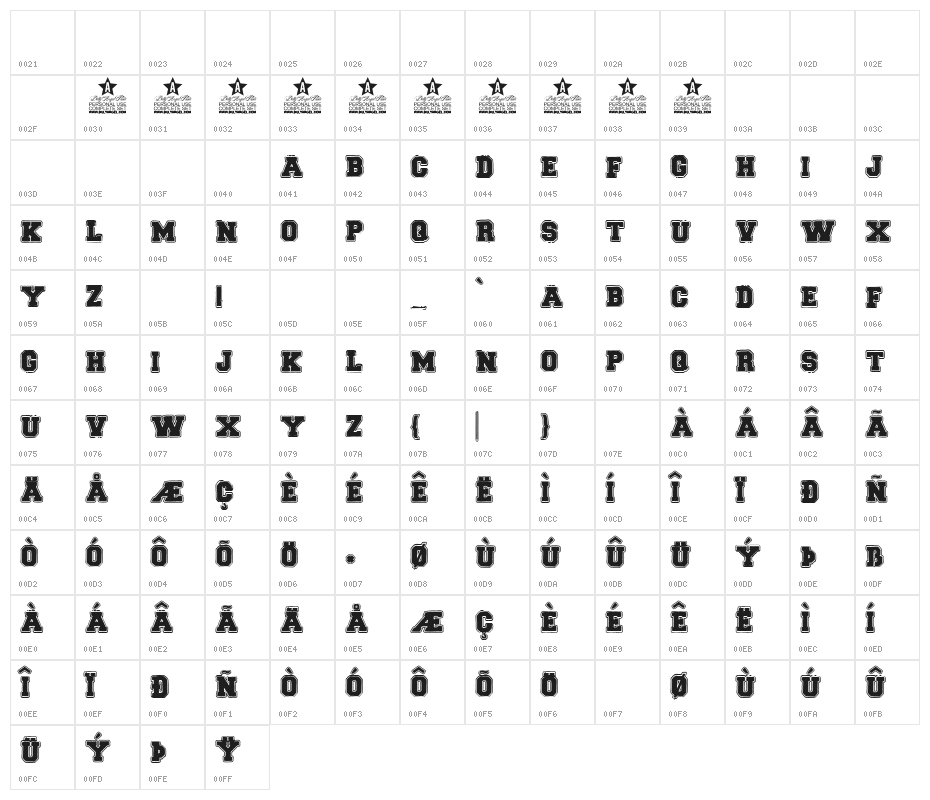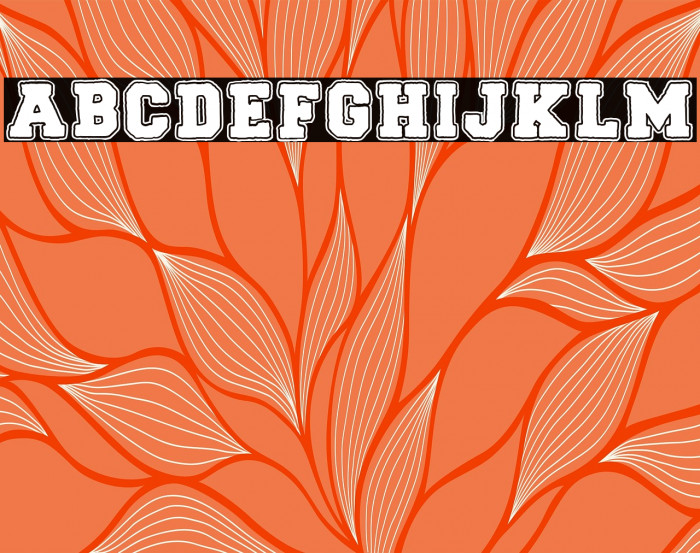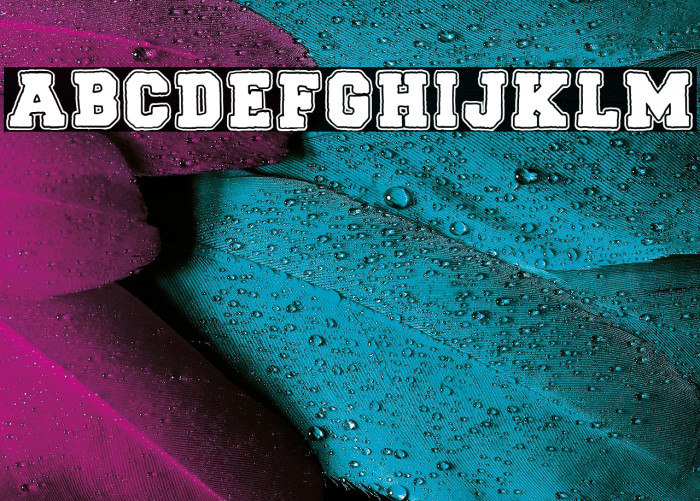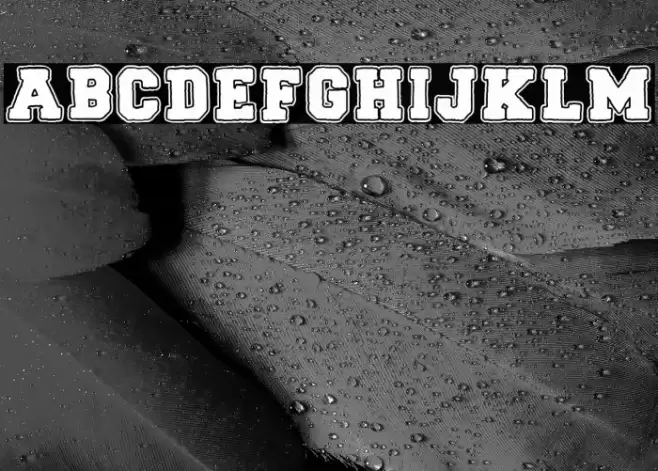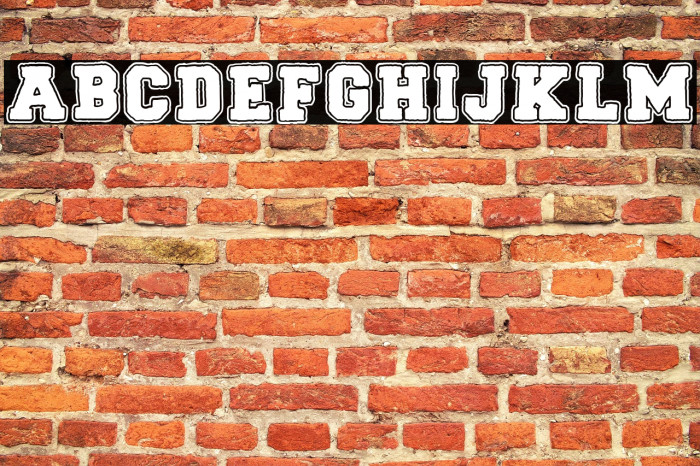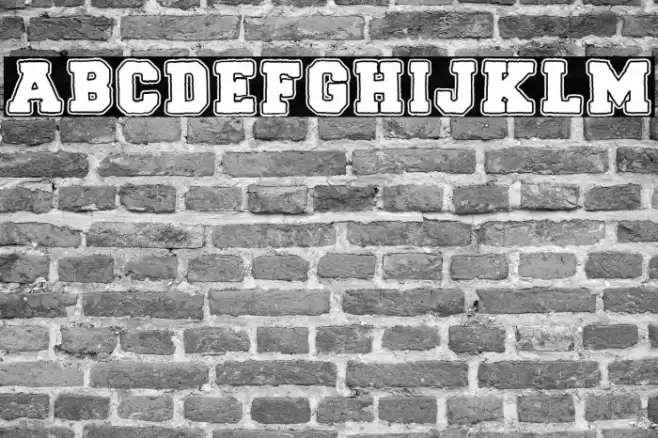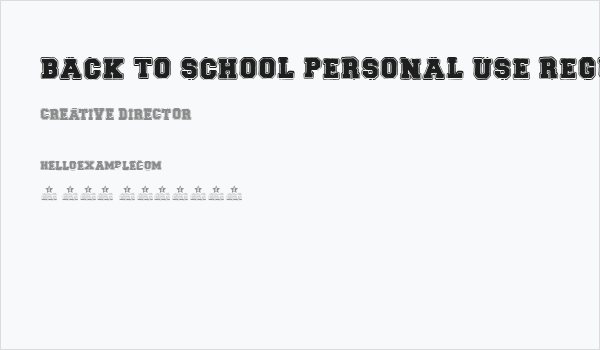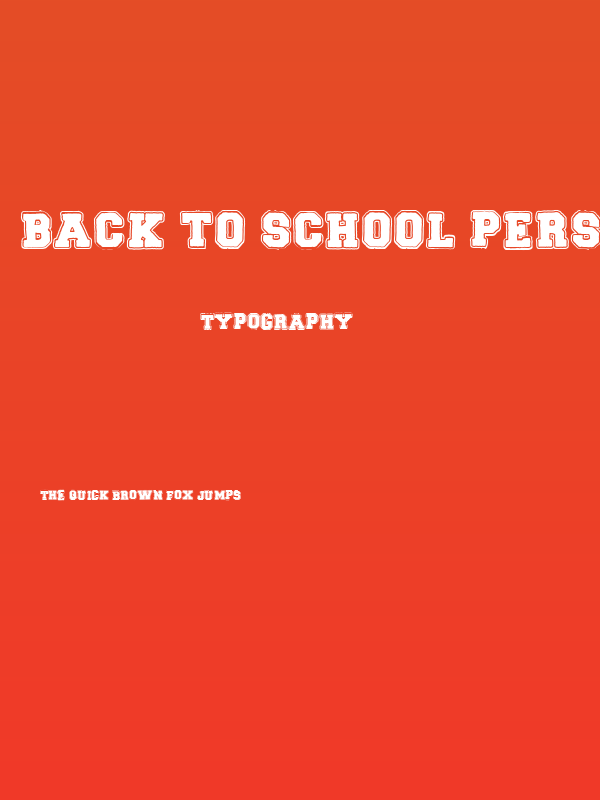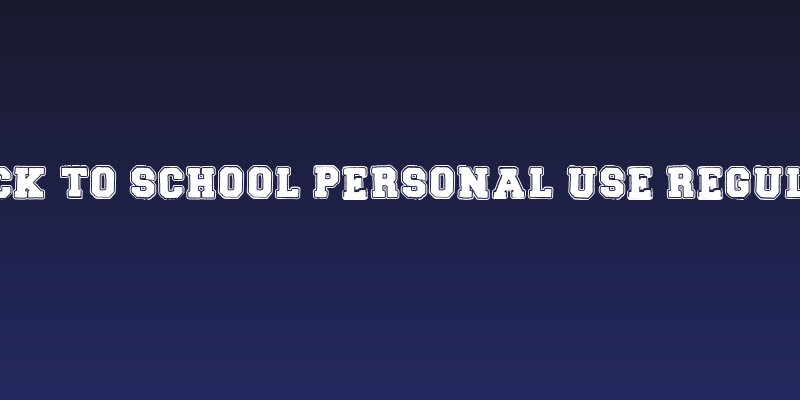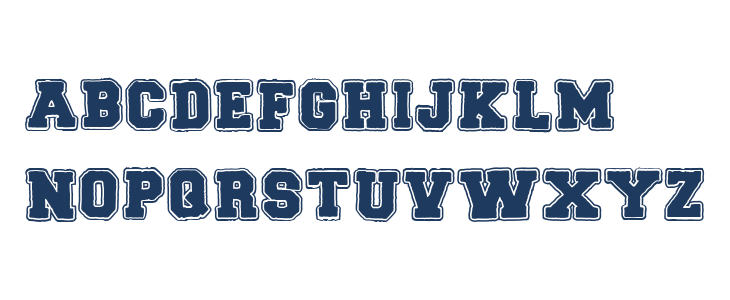
BACK TO SCHOOL PERSONAL USE Regular Font
BACK TO SCHOOL PERSONAL USE Regular Description
This font features bold, blocky letters with a distinct outline that gives it a strong, impactful presence. The uppercase letters are uniform in height and width, creating a cohesive and structured appearance. The design includes a textured, slightly distressed look, adding a vintage or retro feel. The characters are well-defined, with sharp edges and a consistent stroke weight that enhances readability. This style is reminiscent of classic collegiate or sports-themed fonts, making it ideal for projects that require a bold and authoritative typeface.
| Overall Style | Vintage |
| Proposed Projects | Ideal for sports team branding, event posters, school-themed designs, and retro-style merchandise. |